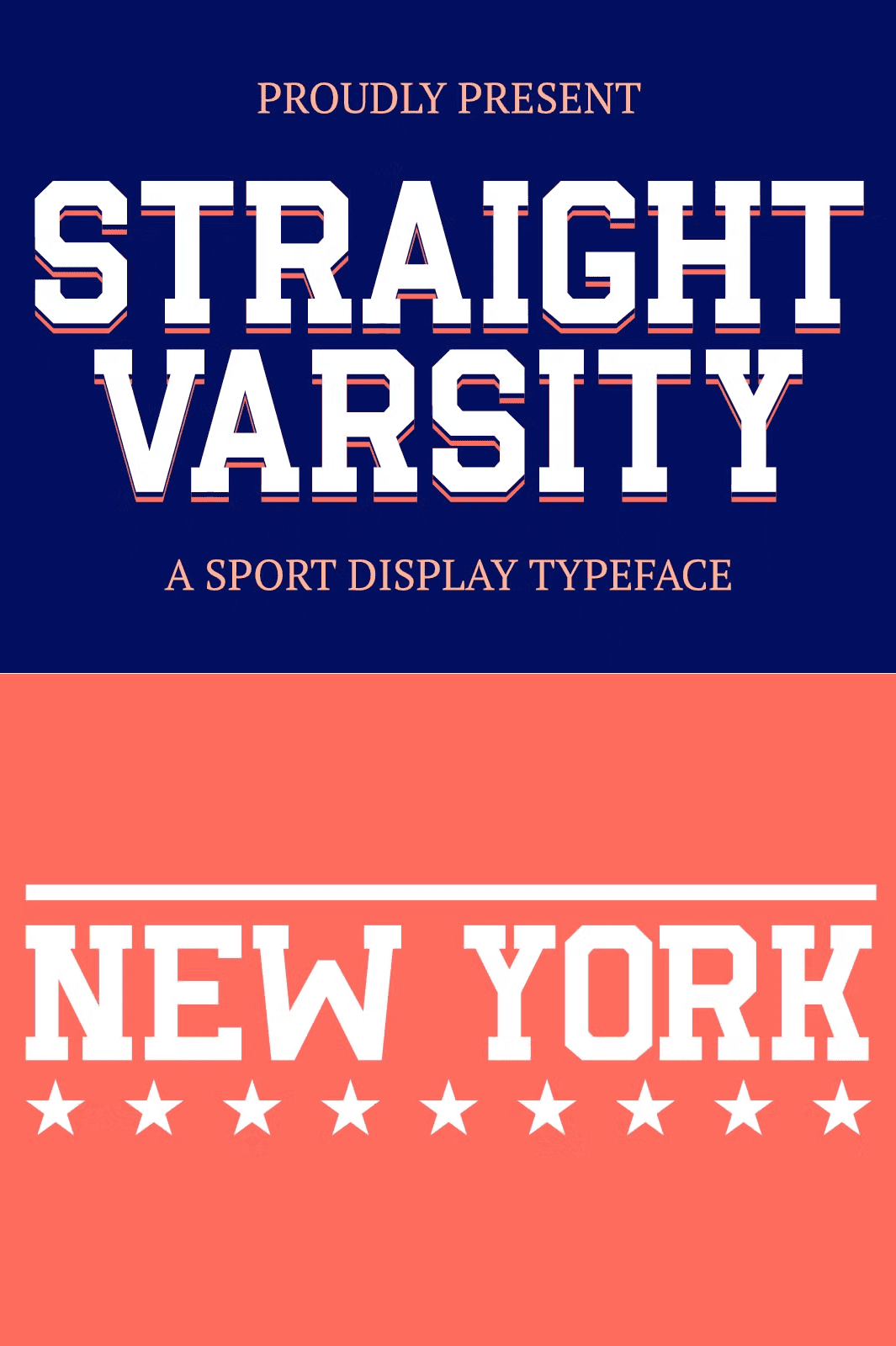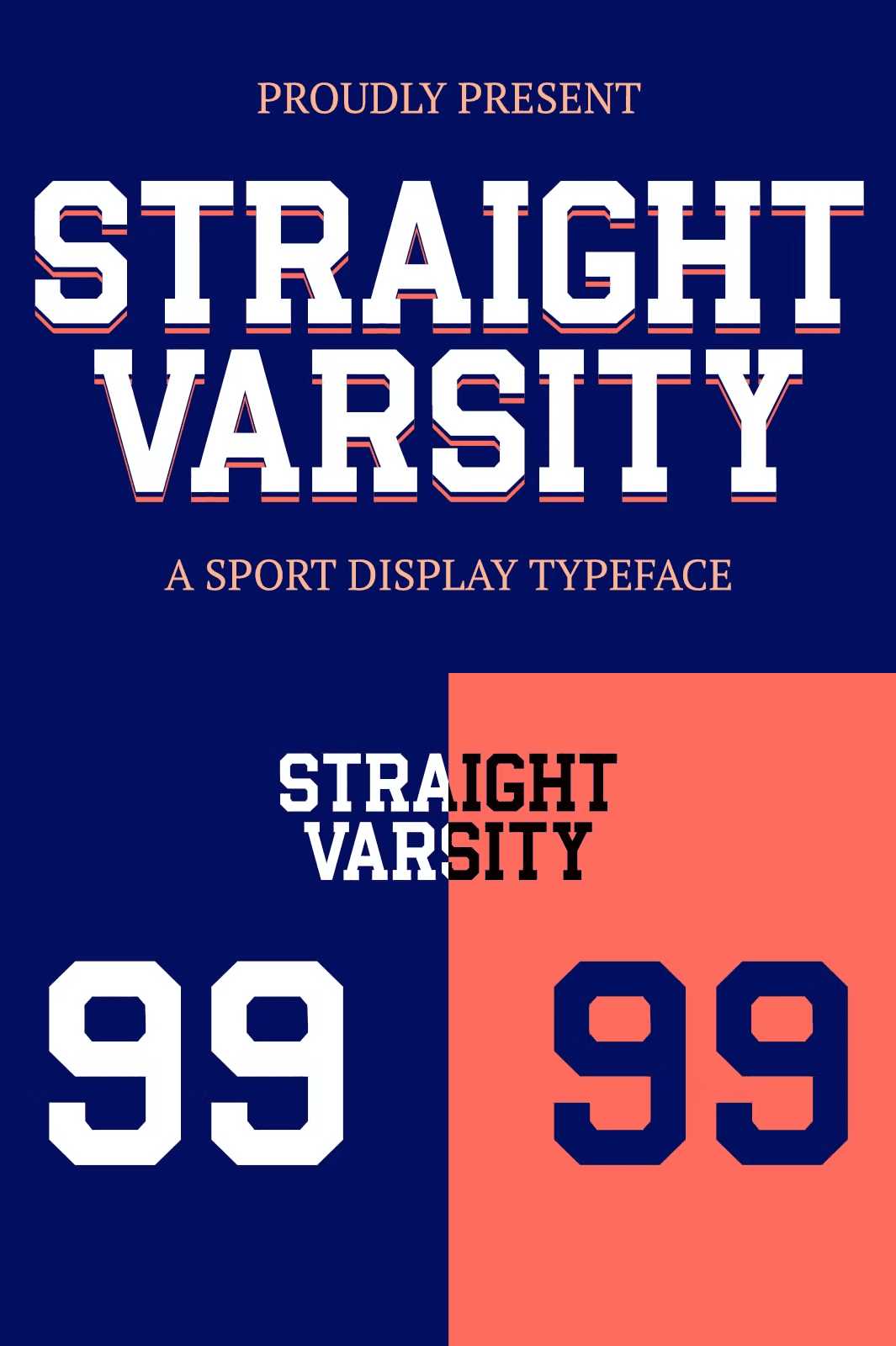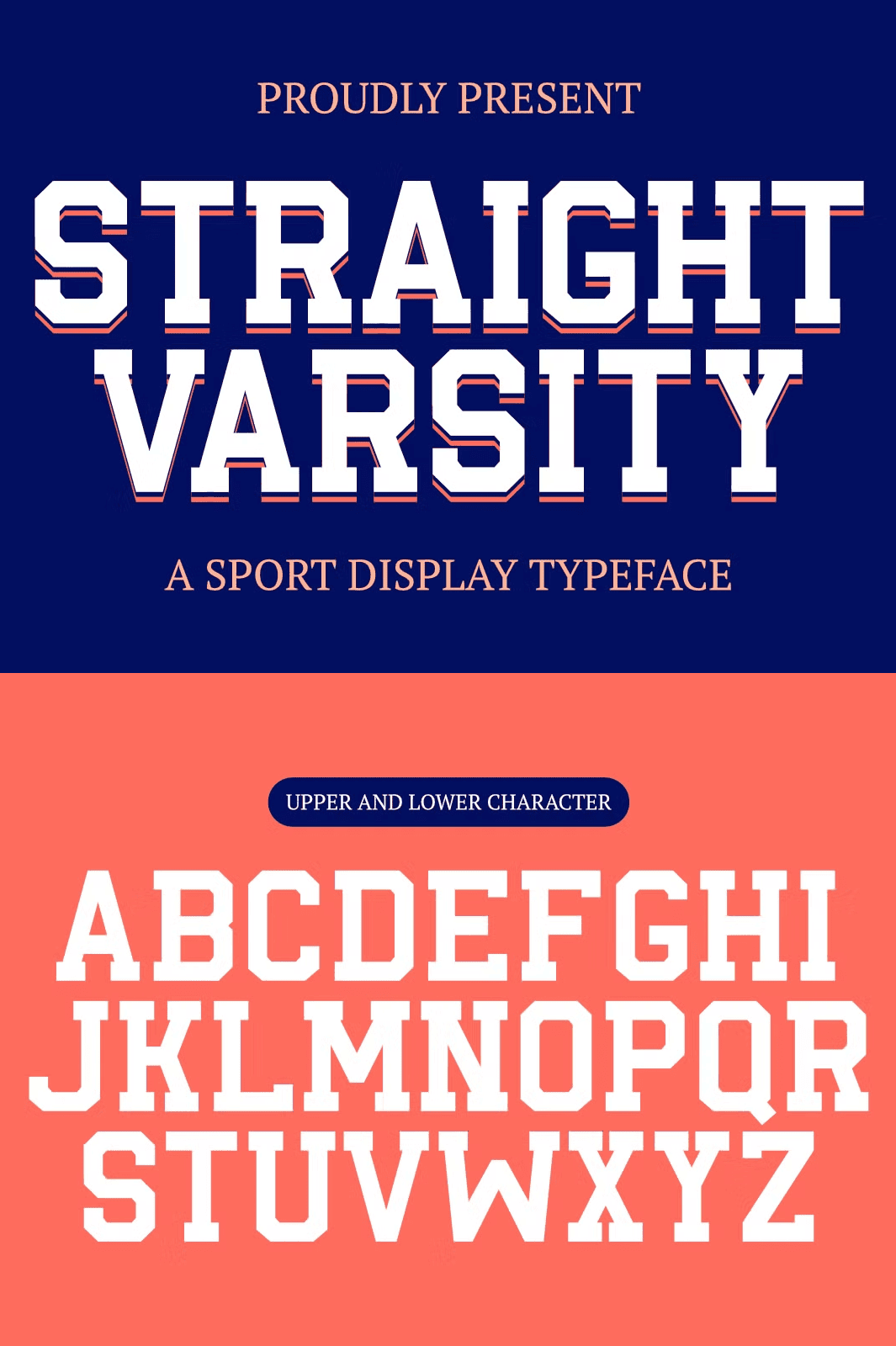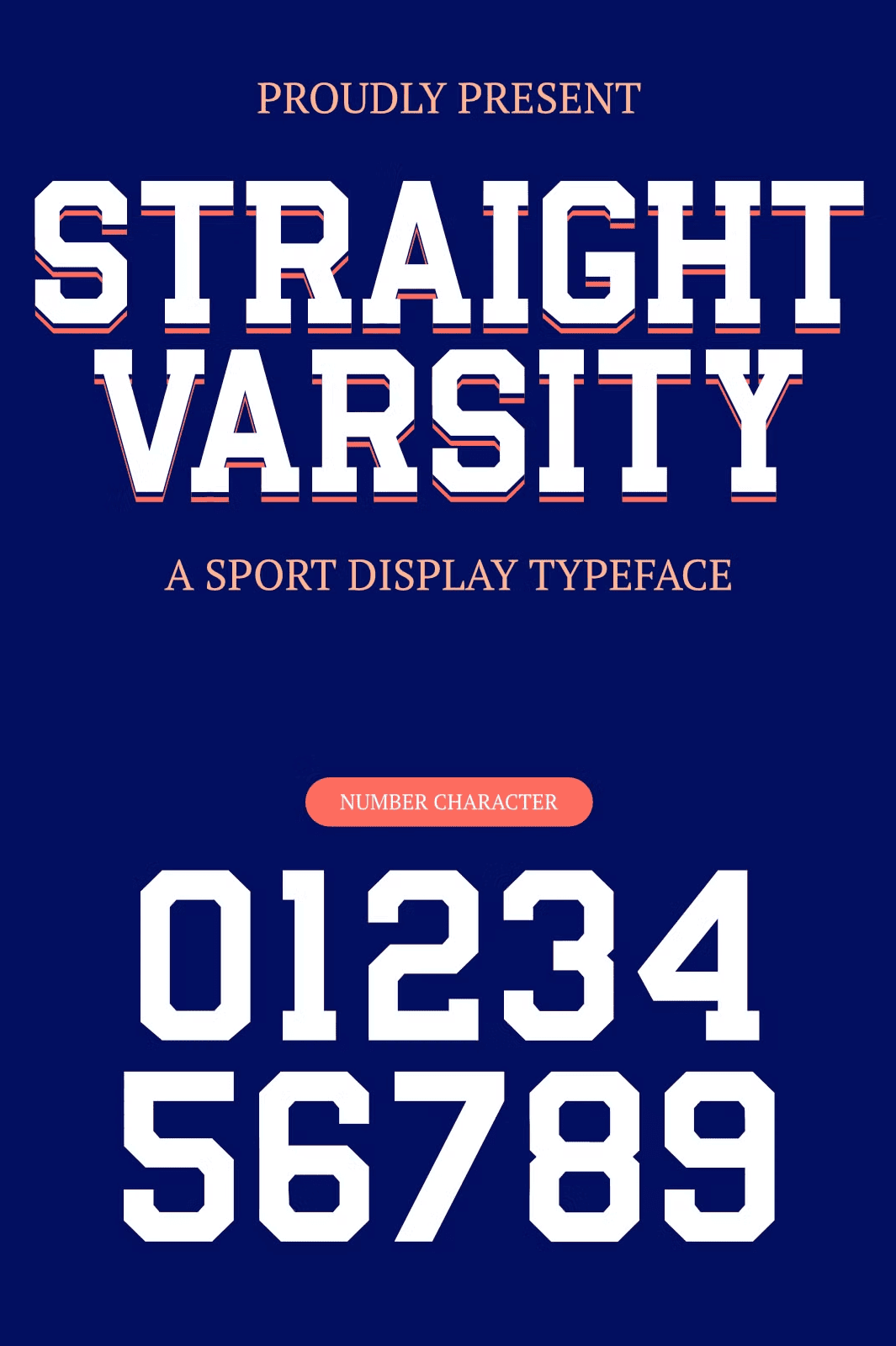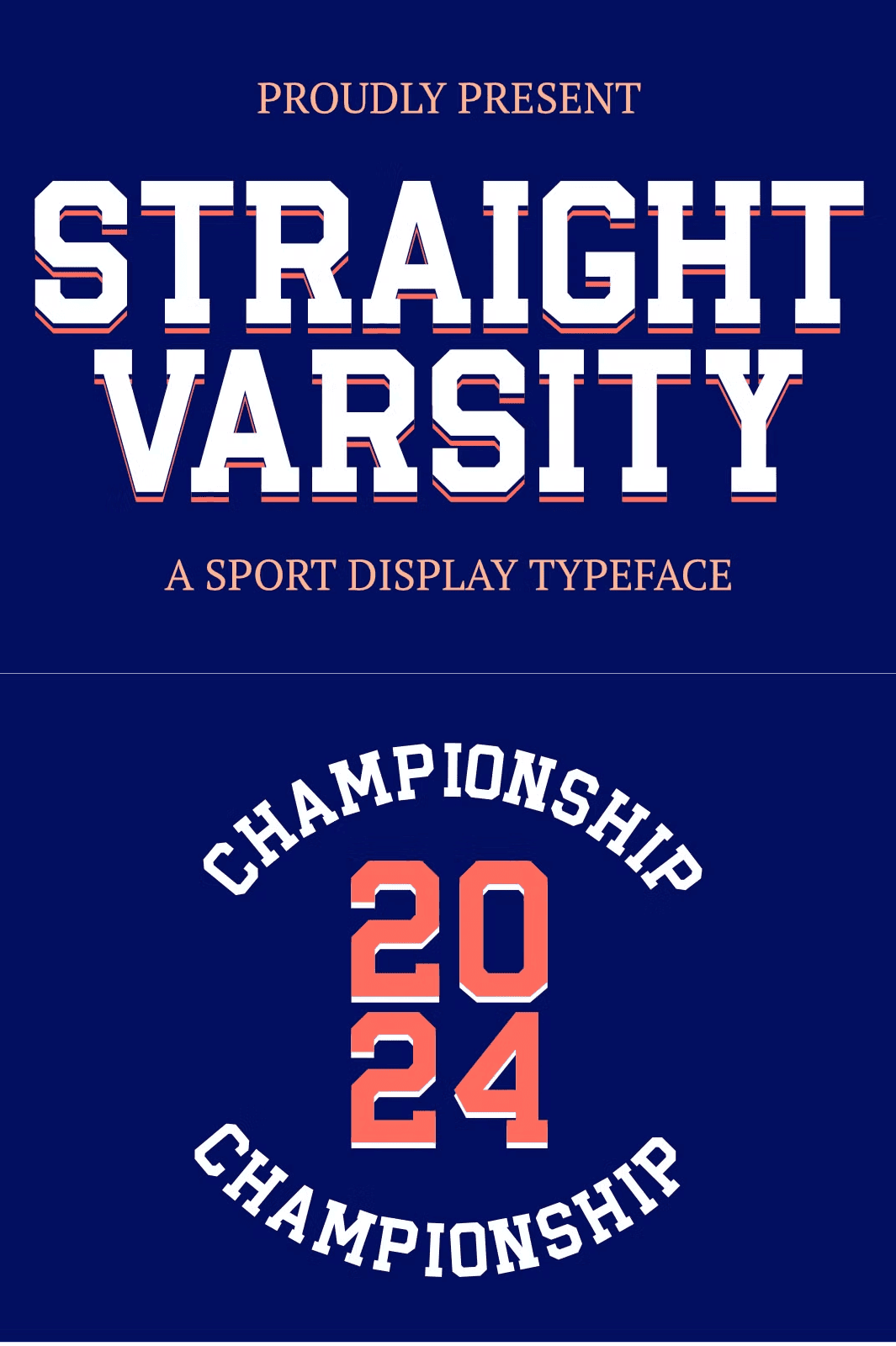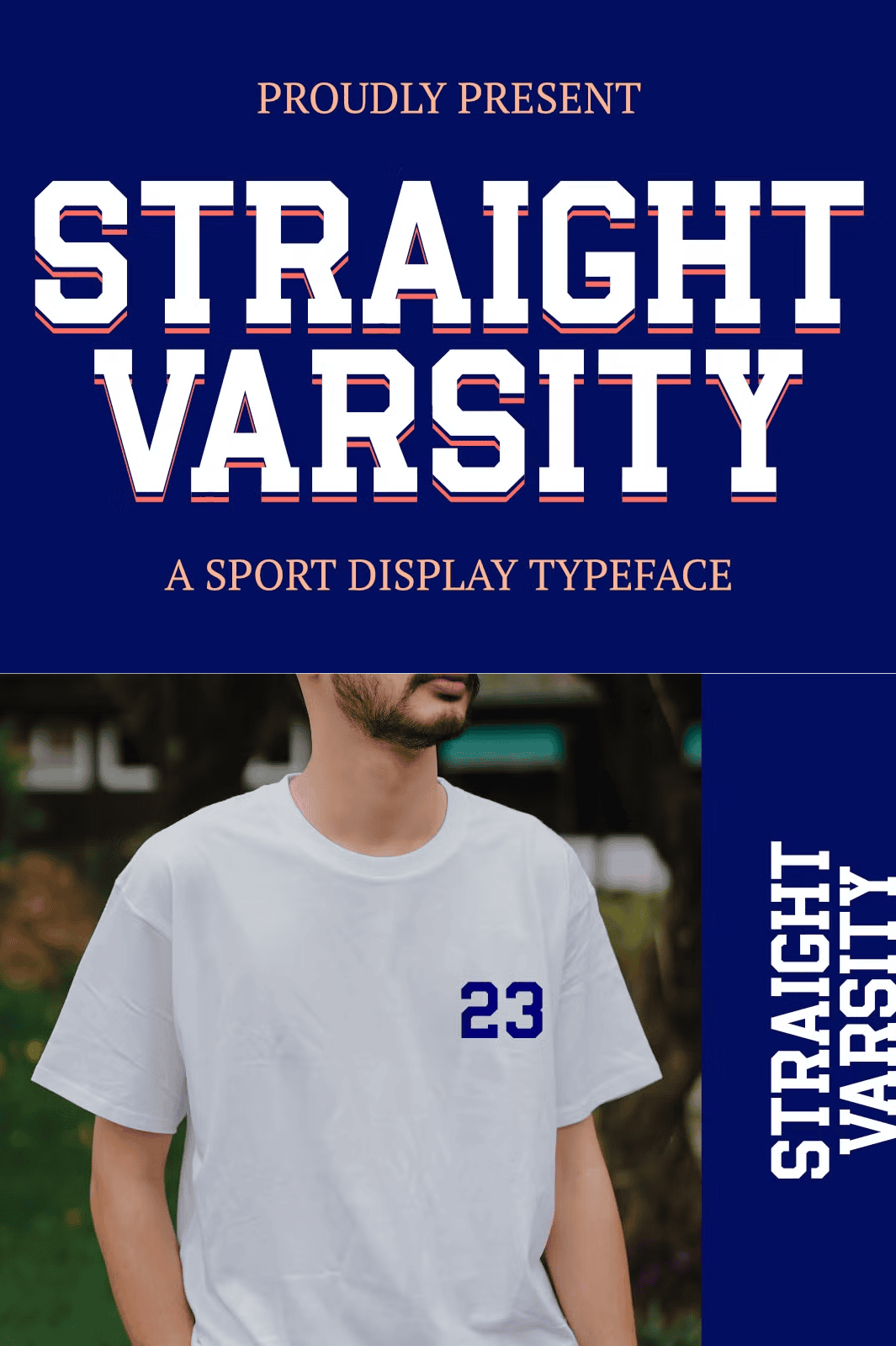
Ignite Your Designs with Authentic Sports-Driven Typography
Transform your creative vision with **Straight Varsity**, a dynamic and powerful sport display font engineered for impact. This isn’t just a typeface — it’s a visual declaration of strength, energy, and competition. Drawing inspiration from classic varsity jackets, retro athletic jerseys, and vintage team emblems, Straight Varsity delivers bold, center-aligned letterforms that command attention and convey authenticity. Whether you’re designing for sports teams, launching a youth brand, creating bold merch, or building a digital campaign, this font gives your work the instant credibility and visual power it deserves.
Designed for maximum versatility and performance, Straight Varsity combines geometric precision with rugged character. Its clean lines and strong structure ensure crystal-clear readability at any scale, while its muscular forms project confidence and determination. This font was built for creators who value authenticity, strength, and professional-grade design tools — making it a top choice for graphic designers, crafters, marketers, and digital artists.
– **Full Uppercase & Lowercase Support** – Use for powerful headlines, slogans, and layered branding.
– **Complete Number and Punctuation Set** – Ensure flawless formatting in all design scenarios.
This robust feature set ensures you never face design limitations. From print to screen, from a single sticker to a full brand identity, Straight Varsity delivers consistent excellence.
Unleash Your Creativity Across Every Application
Harness the full potential of Straight Varsity across a diverse range of creative applications:
– ⚽ **Sports Team Branding**: Craft authentic logos, banners, jerseys, and promotional materials that connect with fans.
– 👕 **T-Shirt & Apparel Design**: Create standout clothing lines with bold team names, motivational quotes, and eye-catching graphics.
– 🖼️ **Posters & Wall Art**: Design high-impact visuals for gyms, school events, or fan gatherings with commanding typography.
– 📱 **Social Media & Digital Campaigns**: Generate scroll-stopping content with viral-ready headlines, quote images, and dynamic story frames.
– ✂️ **Crafting & DIY Projects**: Perfect for vinyl cutting, label making, scrapbooking, SVG file creation, and more.
– 📚 **Book Covers & Magazines**: Add a sporty, energetic edge to book titles and editorial layouts.